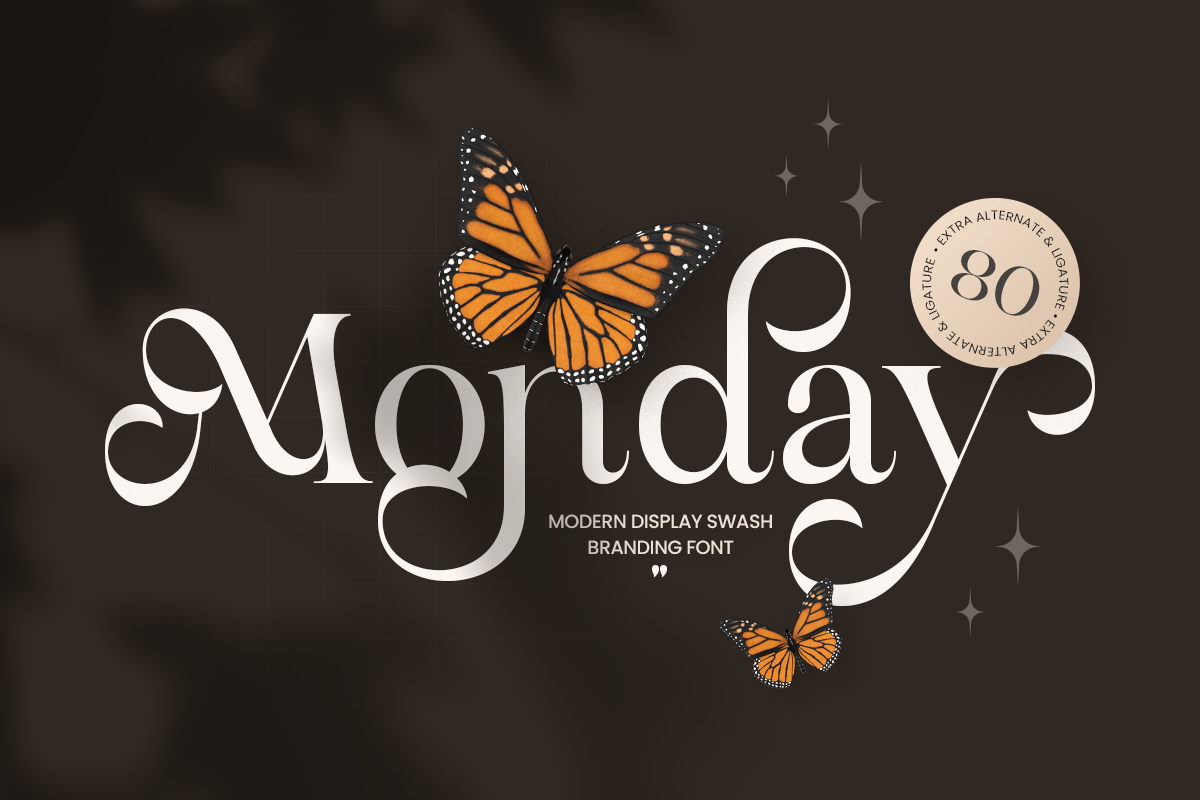
Monday
-Modern Display Swash Branding Font
Monday - Modern Display Swash Branding Font
Monday is a modern display font with graceful swash accents, designed to bring sophistication, elegance, and a premium feel to your branding projects. With its refined letterforms and stylish flourishes, this typeface makes a bold statement while maintaining an air of luxury and professionalism.
Perfect for high-end logos, fashion and beauty branding, boutique identities, editorial layouts, and modern promotional designs, Monday adds a touch of elegance to any project. Its swash details elevate headlines, brand names, invitations, and packaging, creating a refined yet contemporary look.
Whether you’re creating a logo for a luxury brand, crafting an elegant event invitation, or building a modern editorial spread, Monday brings grace, character, and timeless appeal to your design.
Monday – Modern Display Swash Features
• Modern display letterforms with elegant swash accents
• Ideal for premium logos, branding, and high-end design
• Perfect for fashion, beauty, editorial, and creative layouts
• Strong presence with a sophisticated, stylish character
• Optimized for both print and digital projects
• OpenType features for flexible, polished typography
Make your branding look effortlessly elegant with Monday - crafted for modern swash-driven design and high-end visuals. ✨